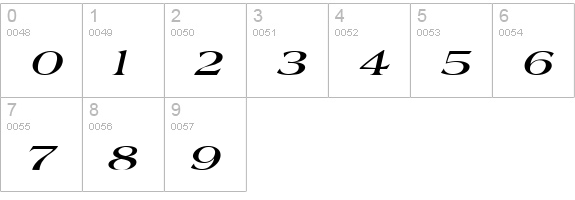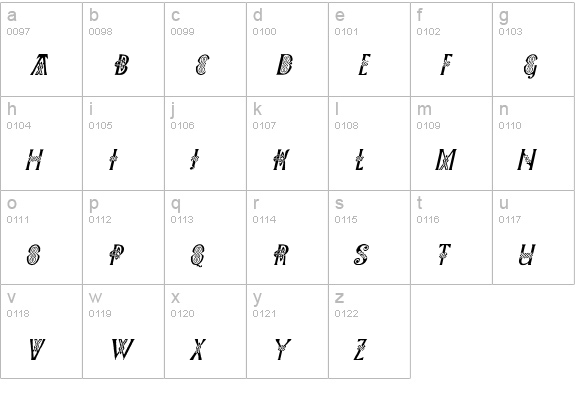
Pee's Celtic Italic Font Details
Pee's Celtic Italic is a distinctive, italic variant in the Pee's typeface family \xE2\x80\x94 well suited to design and typography projects.
Pee's Celtic Italic font embodies the timeless beauty and intricate designs of Celtic culture, with a modern twist. This captivating typeface is perfect for adding a touch of elegance, mysticism, and cultural heritage to your projects. Its graceful curves and delicate strokes evoke the spirit of Celtic art, while the italic style adds a sense of movement and sophistication. Pee's Celtic Italic font is not only visually stunning, but it is also incredibly versatile. Whether you are designing a logo, crafting invitations, creating stunning typography art, or simply adding a touch of Celtic charm to your website or blog, this font will effortlessly elevate your work to the next level. What's even better is that Pee's Celtic Italic font is available to download for free at FontsMarket.com. Yes, you read that right – this exquisite font can be yours without spending a dime. FontsMarket.com is a trusted source for high-quality fonts, and they offer this gem as a free download, allowing you to embrace the beauty of Celtic culture without breaking the bank. So, why wait? Unlock the captivating allure of Celtic art and design with Pee's Celtic Italic font. Download it freely at FontsMarket.com and let your creativity soar to new heights. With this font as your creative partner, you will undoubtedly leave a lasting impression and enchant your audience with its unique and enchanting style.